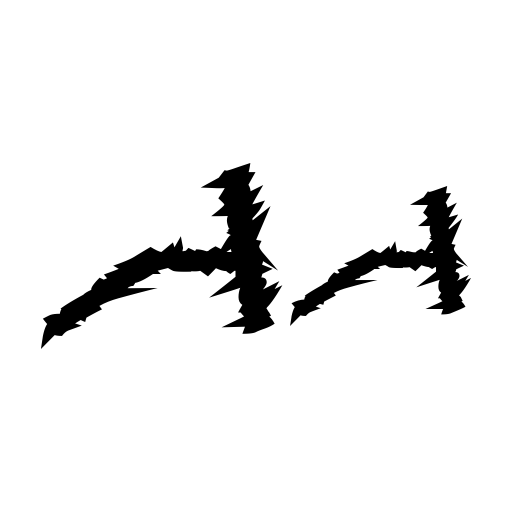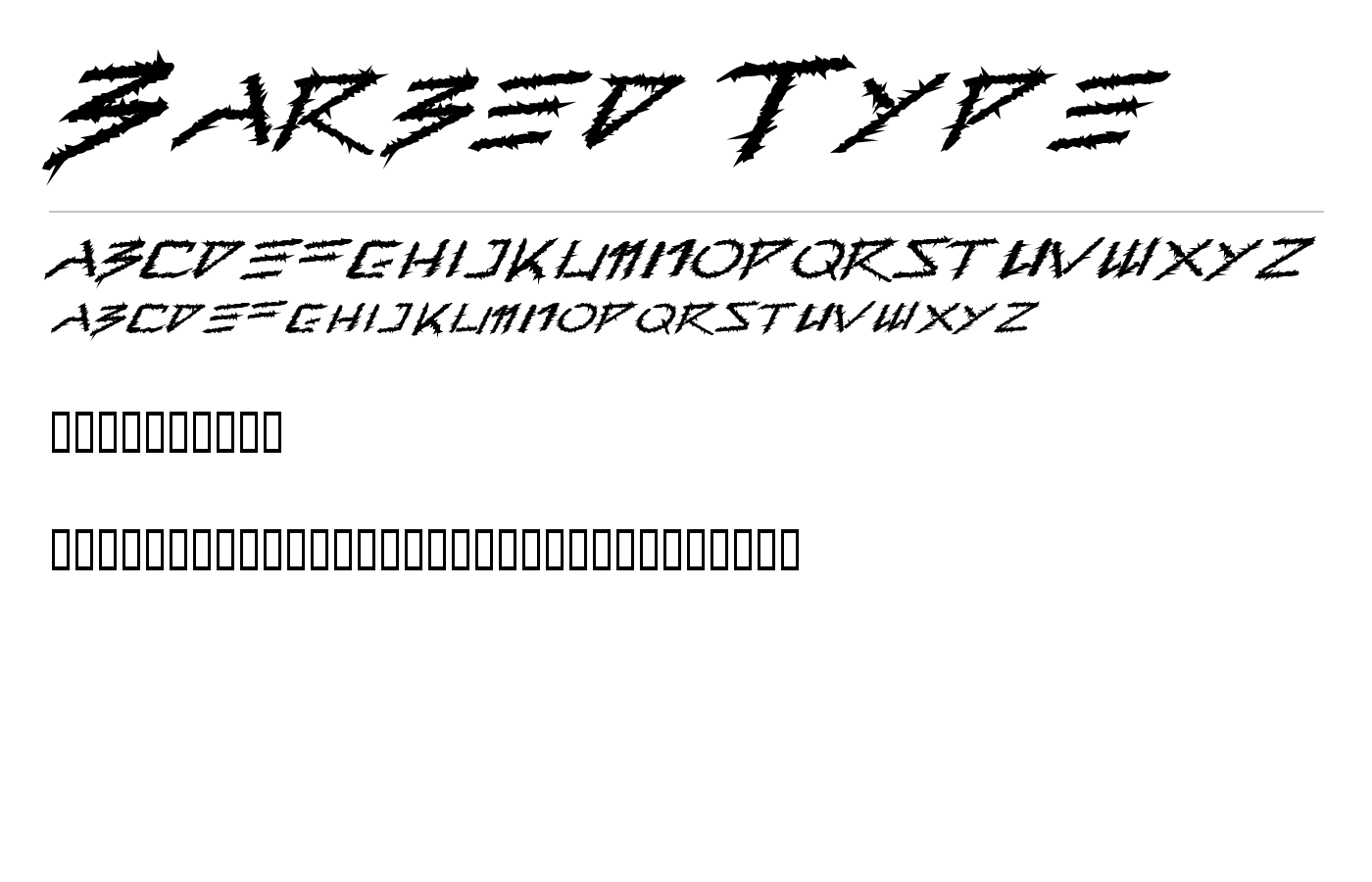
Barbed Type is a bold, edgy sans serif font featuring sharp, jagged strokes that resemble barbed wire, giving it a dynamic and aggressive flair. Its condensed, high-contrast letterforms with a rough, distressed texture make it ideal for striking headlines, logos, and designs seeking a rebellious or intense vibe. This font works best in creative projects needing a raw, energetic look that demands attention.
Barbed Type Font
About Barbed Type Font